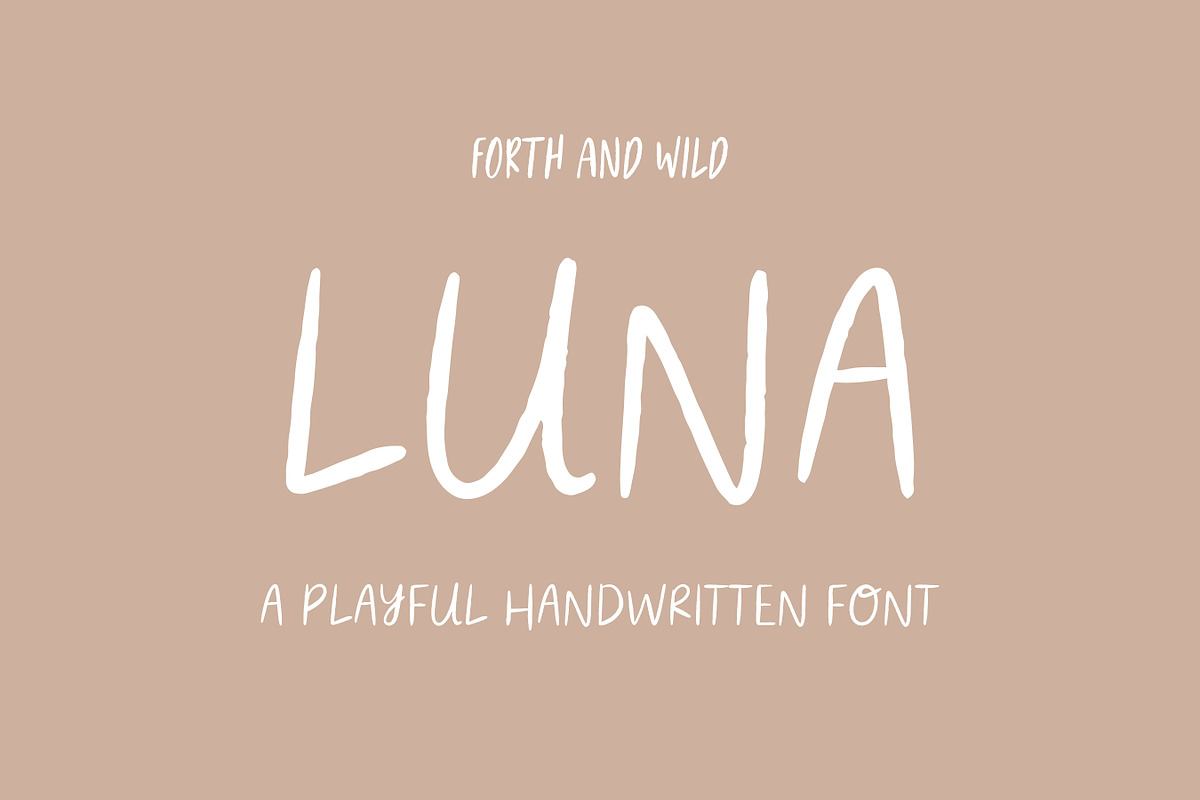
Luna Modern Handwritten Font Free Download
Luna Modern Handwritten Font Free Download is an elegant and fluid handwritten typeface that blends the authenticity of handwriting with a modern, sophisticated touch. Featuring smooth strokes, gentle curves, and a stylish flow, Luna is perfect for fashion branding, wedding invitations, personal projects, and social media graphics.
The font’s versatility allows it to work across both formal and casual designs, offering a contemporary, organic feel while maintaining a polished, legible style. Whether you're designing for a luxury brand, a personal blog, or creating personalized stationery, Luna Modern Handwritten Font Free Download adds a touch of class and creativity to your typography.
Bring elegance and personality to your designs with the sophisticated charm of Luna!